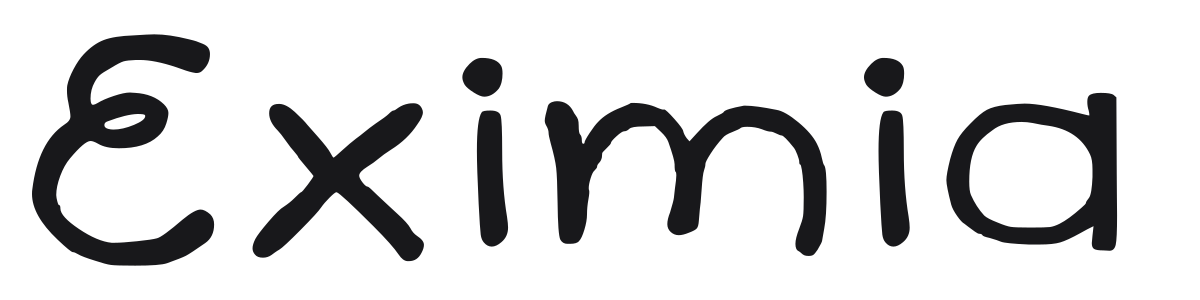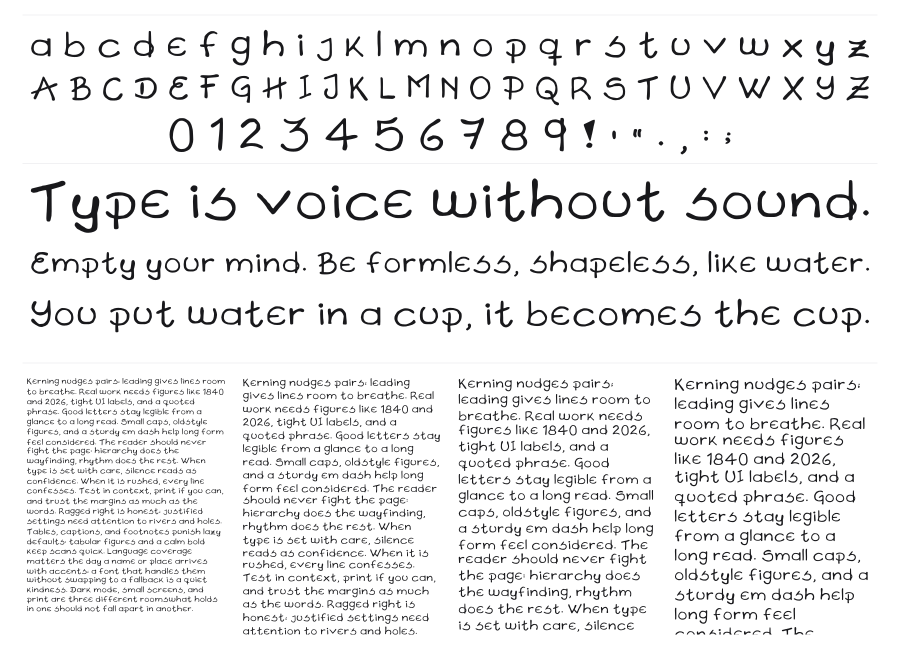
Eximia
by Marianela Gutierrez
Eximia is a casual handwritten sans with a loose, pen-drawn character and light strokes. Letters bounce gently off the baseline with rounded terminals and natural irregularities that keep things feeling spontaneous and warm. It works well wherever a human touch is needed without going full calligraphy.